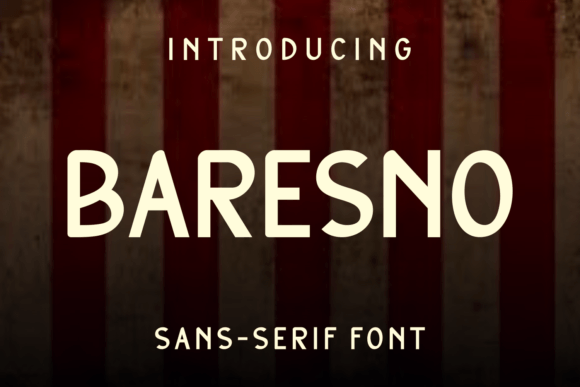
The Perfect Font for Your Next Project
There’s nothing quite like the thrill of starting a new project, and the search for the perfect font is often the first step in bringing your vision to life. You scroll through font libraries, browse through design communities, and try out different styles until you finally find the one that feels just right. For many designers, that perfect font is Baresno – a casual and neat sans serif font that adds a touch of elegance to any project.
Whether you’re designing a logo, creating a brochure, or building a website, Baresno Font is the perfect addition to your toolkit. Its clean lines, simple shapes, and friendly feel make it a versatile choice for a wide range of applications. And with its modern aesthetic, it’s sure to elevate your designs and leave a lasting impression on your audience.
Baresno Font Key Features
- Font Family: Baresno Font is a sans-serif font family that includes multiple weights and styles.
- Unique Characteristics: Baresno Font features a clean and modern design, with a focus on legibility and readability, making it ideal for digital and print media.
Baresno Font Review
I recently had the chance to work with the Baresno Font, and I have to say, it’s a unique and intriguing choice. Here are my thoughts on what works well and what doesn’t.
- Exotic feel**: Baresno Font has a distinctive, exotic feel that can add a touch of sophistication to your design projects.
- Highly legible**: Despite its unique appearance, the font is surprisingly legible, making it suitable for body text as well as headlines.
- Strong typography foundation**: The font’s design is well-structured, with a clear understanding of the relationships between letterforms.
- Limited character set**: Baresno Font has a relatively small character set, which may be a limitation for designers who need to use it for extensive text.
- Not ideal for body text in small sizes**: While the font is legible, it may not be the best choice for body text in small sizes, where the letterforms can become difficult to read.
Overall, I think Baresno Font is a great choice for designers who want to add a touch of uniqueness to their projects. However, it may not be the best choice for projects that require extensive text or small body text sizes.
Getting the Most Out of Baresno Font
To get the most out of Baresno Font, use it for:
Headings and titles to create a bold and modern look.
Body text to add a touch of elegance and sophistication.
Combine Baresno Font with other fonts to create a unique and visually appealing design.
Baresno Font is perfect for:
Business cards and resumes.
Marketing materials and advertisements.
Alternatives to Baresno Font
Montserrat is a popular sans-serif font designed by Julieta Ulanovsky. It’s ideal for titles, headings, and body text where a clean and modern look is desired. Montserrat is more versatile and widely supported than Baresno Font, making it a great choice for web design and print projects.
Comparison: Montserrat has a more geometric and structured feel, whereas Baresno Font is more rounded and playful. While Baresno Font is better suited for creative and whimsical projects, Montserrat excels in corporate and modern designs.
Lato is a modern sans-serif font designed by Łukasz Dziedzic. It’s perfect for body text and titles where a clean and elegant look is desired. Lato is more legible and readable than Baresno Font, making it an excellent choice for long-form content and academic projects.
Comparison: Lato has a more refined and sophisticated feel, whereas Baresno Font is more playful and casual. While Baresno Font is better suited for creative and informal projects, Lato excels in formal and professional designs.
Open Sans is a popular sans-serif font designed by Steve Matteson. It’s ideal for body text and titles where a clean and neutral look is desired. Open Sans is more readable and accessible than Baresno Font, making it an excellent choice for web design and digital projects.